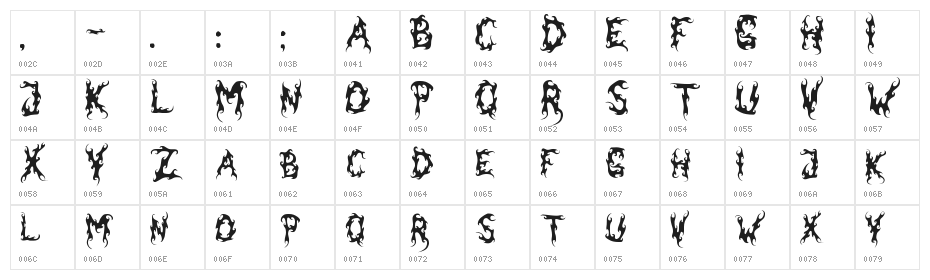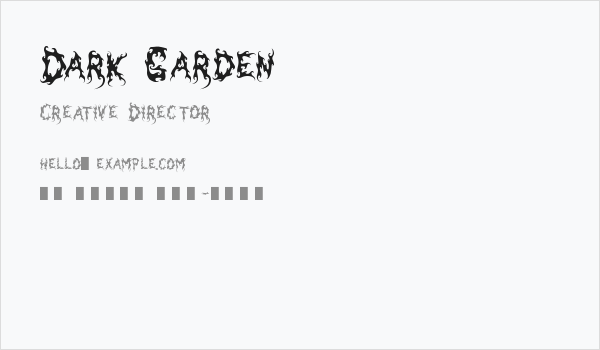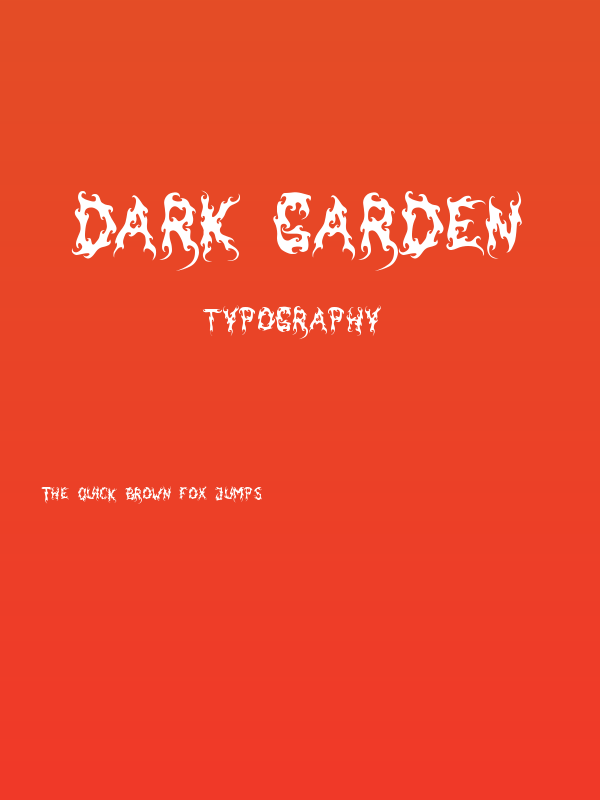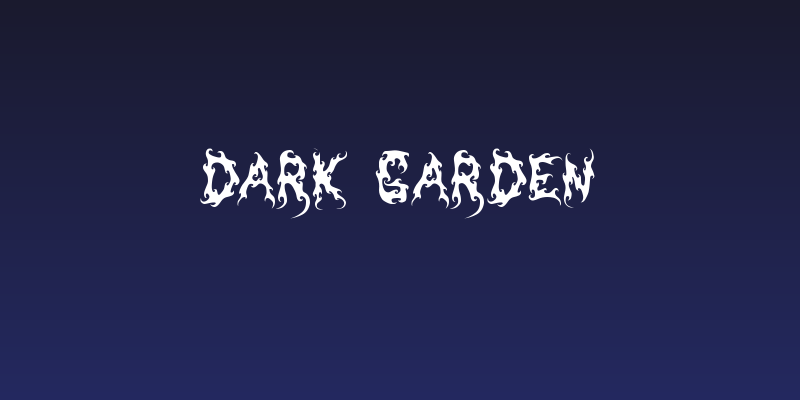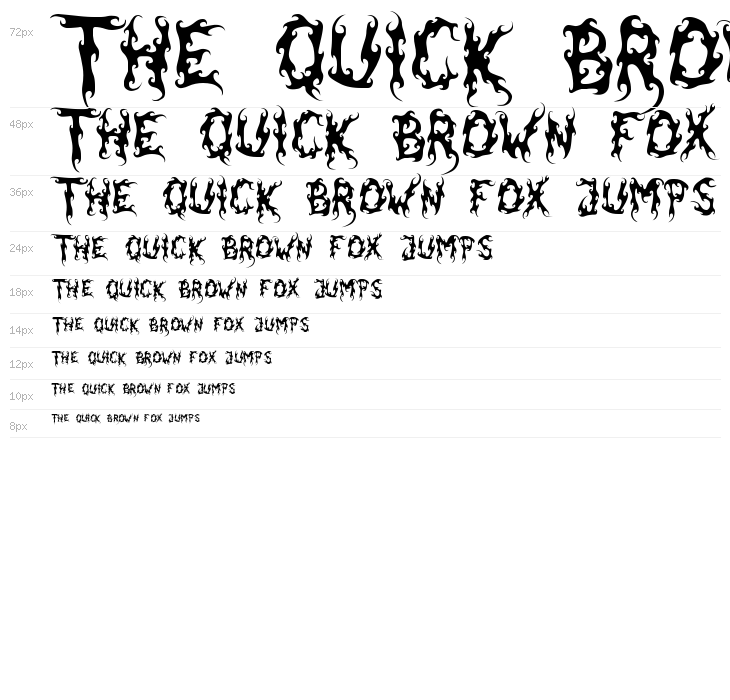
Dark Garden Font
Dark Garden Description
This font features a highly decorative and intricate design, reminiscent of flames or organic tendrils enveloping each character. The uppercase and lowercase letters maintain a consistent style, with bold, dramatic strokes that create a sense of movement and intensity. The characters are well-defined yet possess an artistic flair that makes them stand out. This font is ideal for creating eye-catching headlines or logos that require a touch of the dramatic and the unique. The special characters are designed to match the overall aesthetic, ensuring a cohesive look across all text elements.
| Proposed Projects | Ideal for Halloween-themed designs, fantasy book covers, band posters, or any project requiring a dramatic and unique typeface. |